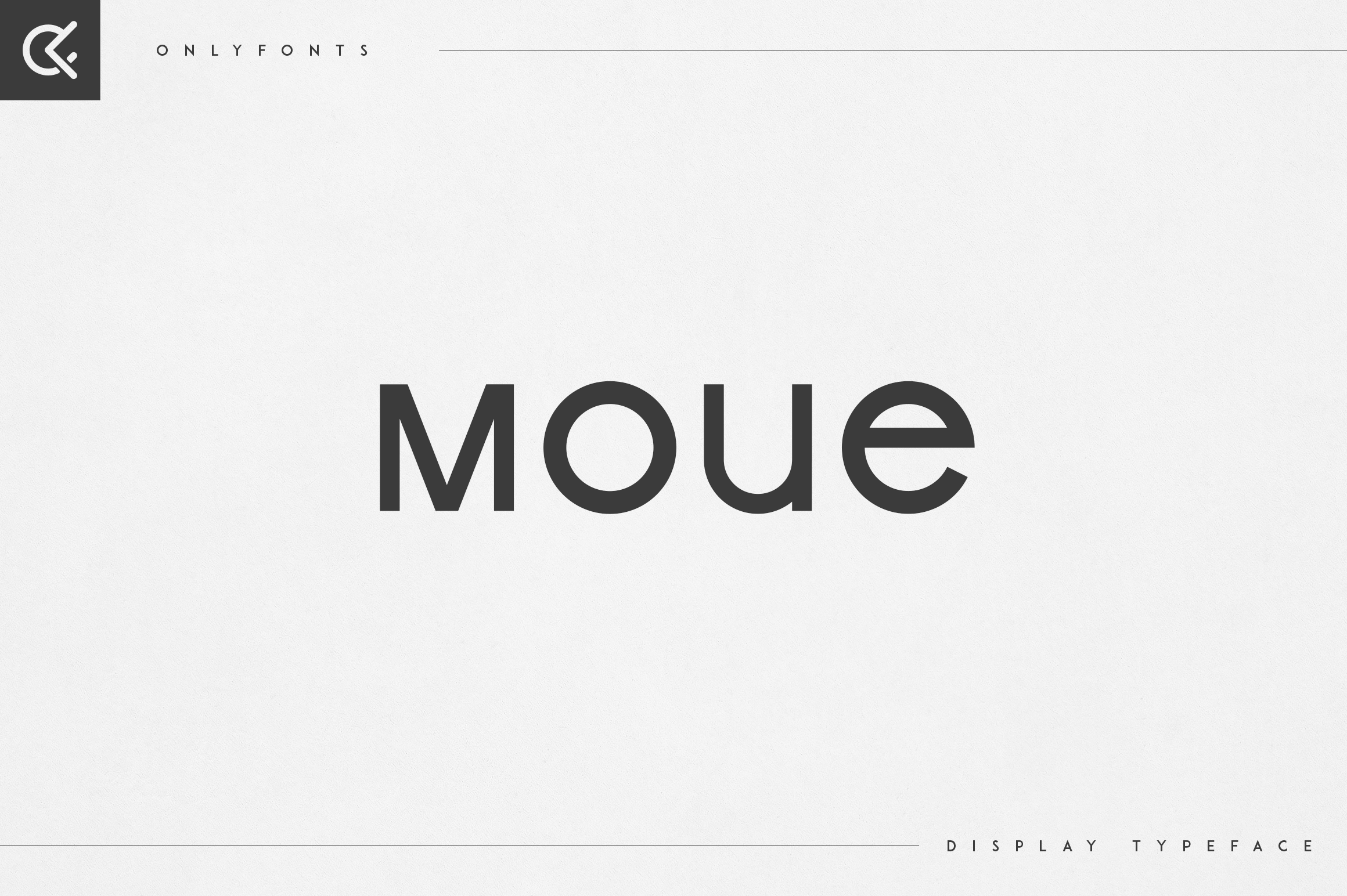
Moue - display typeface
Introducing Moue - display typeface - 3 styles
Moue is bold and weird typeface with 3 fonts and multilingual support. It's a very versatile font that works great in large and small sizes.
This font is perfect for branding projects, home-ware designs, product packaging, magazine headers - or simply as a stylish text overlay to any background image.